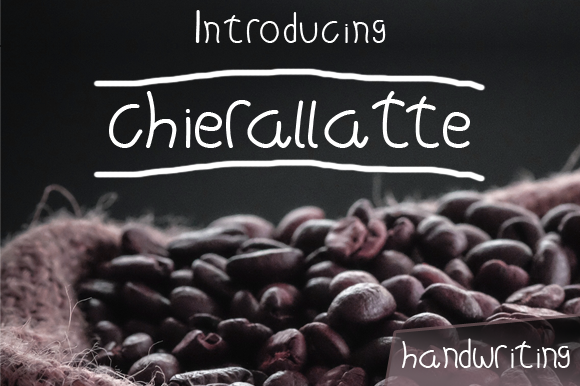
Chierallatte Font
About Chierallatte Font
This unique handwritten font features a classic and timeless design. Without doubt, it will add a unique touch to any design project!